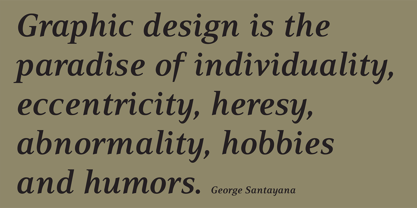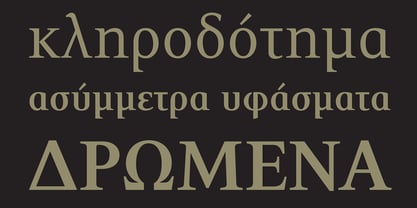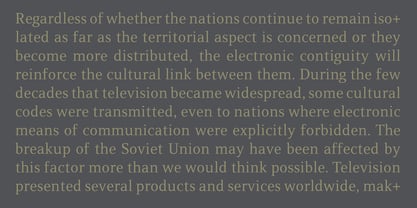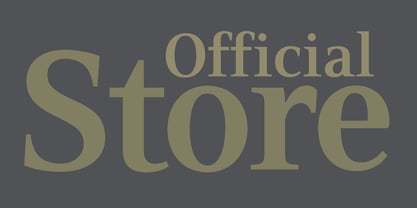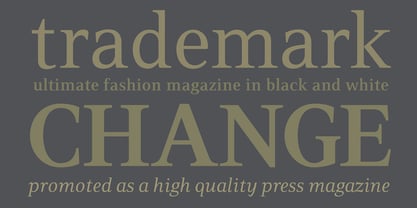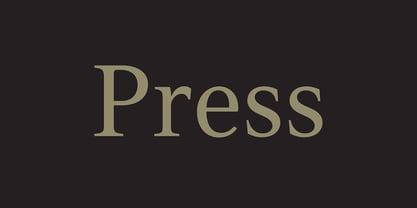
PF Press
PF Press™
by Parachute
PF Press Font Family was designed by Panos Vassiliou and published by Parachute. PF Press contains 4 styles and family package options.
About PF Press Font Family
Press combines aesthetic and functional attributes which make written text highly readable. It was originally designed for a newspaper with medium contrast to withstand harsh printing conditions. Its structure is quite narrow which makes this typeface ideal for body text and headlines where space is at premium. Supports Latin and Greek. This is a modern serif typeface which may be the right choice for newspapers, magazines and corporate communications.